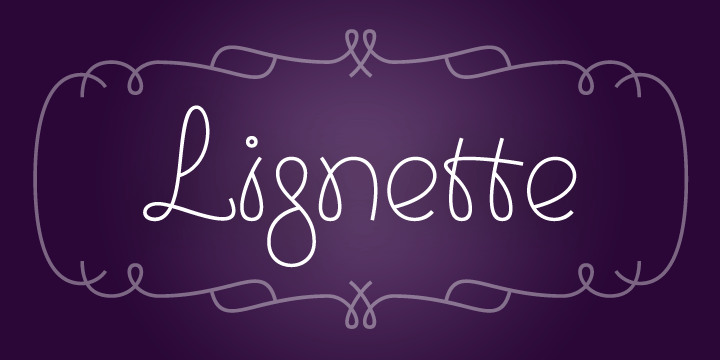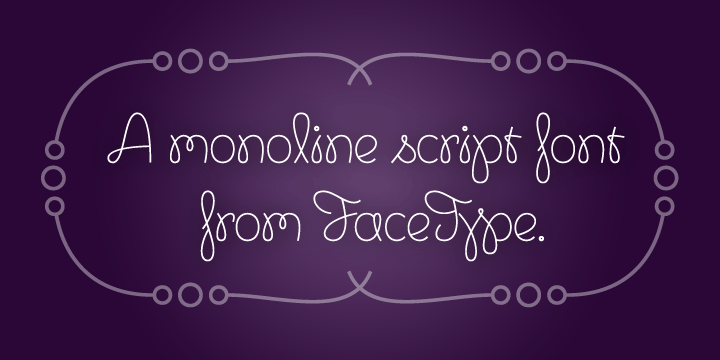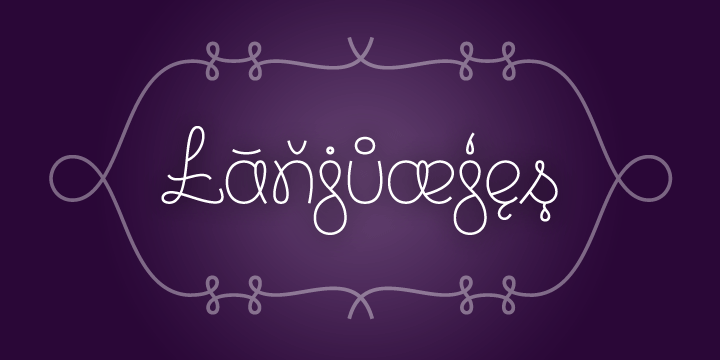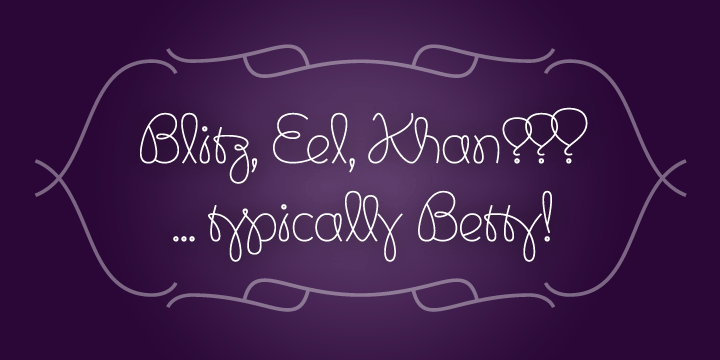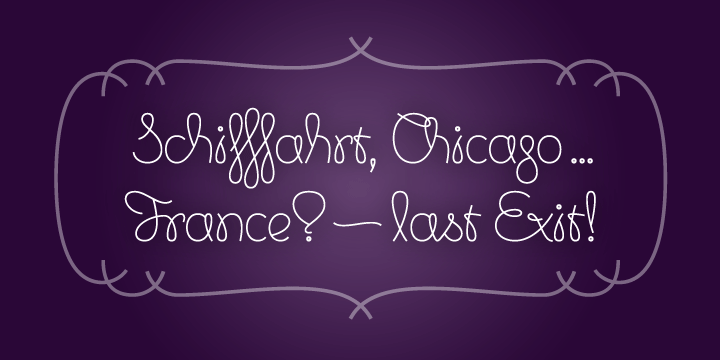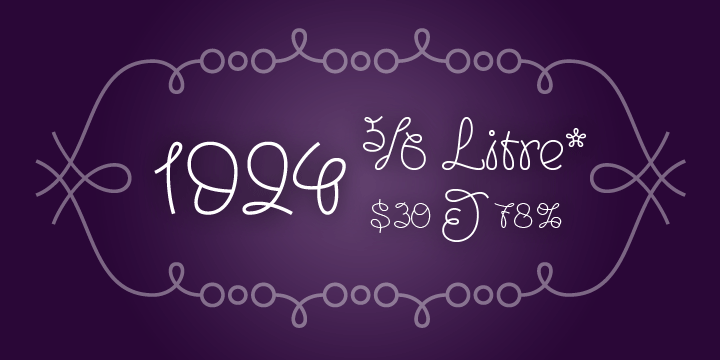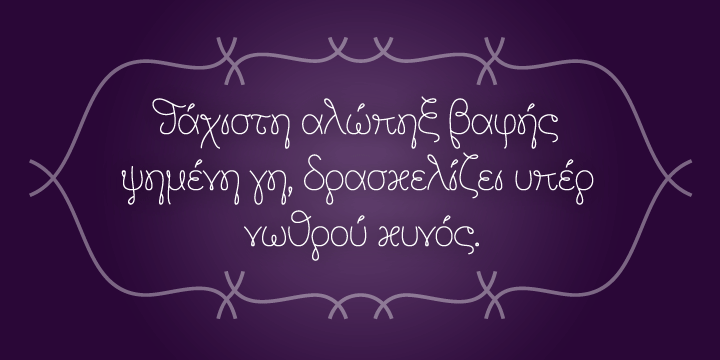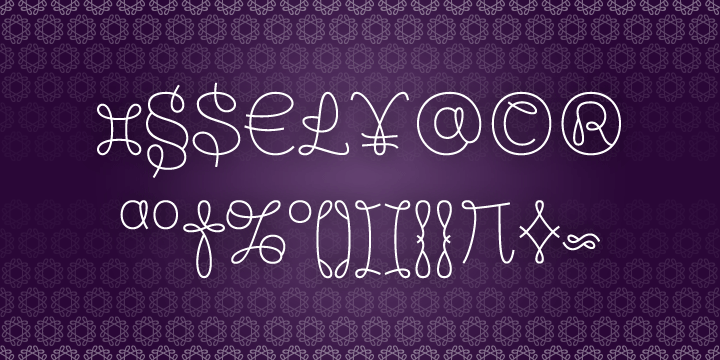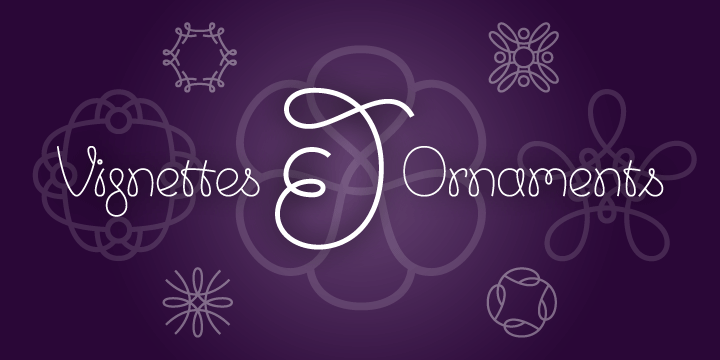
You are looking for a contemporary upright script family?
Lignette Script is an elegant monoline font consisting of 535 glyps, with a wide range of languages covered (including greek) and 71 beautiful ligatures – please make sure to use applications that support OpenType features. Moreover Marcus Sterz created Lignette Deco to complete the graceful look with frames and ornaments.